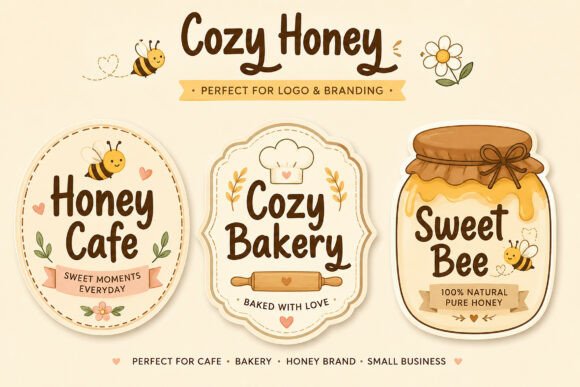
Introducing Cozy Honey Font: The Sweetest Addition to Your Design Toolbox
Are you on the hunt for a font that exudes warmth, friendliness, and playfulness? Look no further than Cozy Honey, a delightful handwritten display font that’s sure to bring a smile to your face. Inspired by the sweetness of honey drips, cozy mornings, cute doodles, and cheerful handmade lettering, this font is the perfect choice for designers and crafters looking to add a touch of whimsy to their creations.
The Personality of Cozy Honey
Cozy Honey is more than just a font – it’s a personality. It’s the embodiment of a warm, fuzzy feeling that makes you feel like you’re wrapped in a cozy blanket on a chilly morning. Its smooth curves, playful letterforms, and handcrafted appearance make it the perfect choice for designs that require a personal touch. Whether you’re creating logos, branding, packaging, or social media graphics, Cozy Honey adds a dash of sweetness and creativity to every design.
Cozy Honey is an incredibly versatile font that can be used for a wide range of design projects. Here are just a few ideas to get you started:
- Logos and Branding: Create a lasting impression with a custom logo that showcases your brand’s personality.
- Packaging: Add a touch of whimsy to your product packaging and make it stand out on store shelves.
- Invitations: Create eye-catching invitations for parties, weddings, and other special events.
- Stickers and Social Media Graphics: Add a playful touch to your stickers and social media graphics to engage with your audience.
- T-Shirts and Mugs: Create fun and quirky designs for t-shirts and mugs that make perfect gifts or promotional items.
- Greeting Cards: Add a personal touch to your greeting cards and make them extra special.
- Cricut Projects: Use Cozy Honey to create custom vinyl decals, iron-on designs, and paper crafts with your Cricut machine.
Who is Cozy Honey Perfect For?
Cozy Honey is perfect for designers, crafters, and small business owners who want to add a touch of warmth and personality to their designs. Here are a few examples of who might love Cozy Honey:
- Children’s Product Designers: Create engaging and fun designs for children’s products, such as toys, books, and games.
- Bakery Branding: Add a touch of sweetness to your bakery branding, including logos, packaging, and website design.
- Honey and Food Label Designers: Create eye-catching labels for honey, food products, and beverages.
- Party Decorators: Use Cozy Honey to create custom party decorations, such as banners, garlands, and cupcake toppers.
- Classroom Teachers: Create engaging and fun classroom resources, such as worksheets, posters, and activity sheets.
- Crafters: Use Cozy Honey to create custom vinyl decals, iron-on designs, and paper crafts with your Cricut machine.
Why Choose Cozy Honey?
So why choose Cozy Honey over other fonts? Here are just a few reasons:
- Unique Personality: Cozy Honey has a unique personality that sets it apart from other fonts.
- Versatility: Cozy Honey can be used for a wide range of design projects, from logos and branding to social media graphics and Cricut projects.
- Easy to Read: Despite its playful nature, Cozy Honey is easy to read and understand, making it perfect for designs that require a clear message.
- High-Quality Design: Cozy Honey is a high-quality font designed with attention to detail and a focus on aesthetics.
Get Ready to Fall in Love with Cozy Honey!